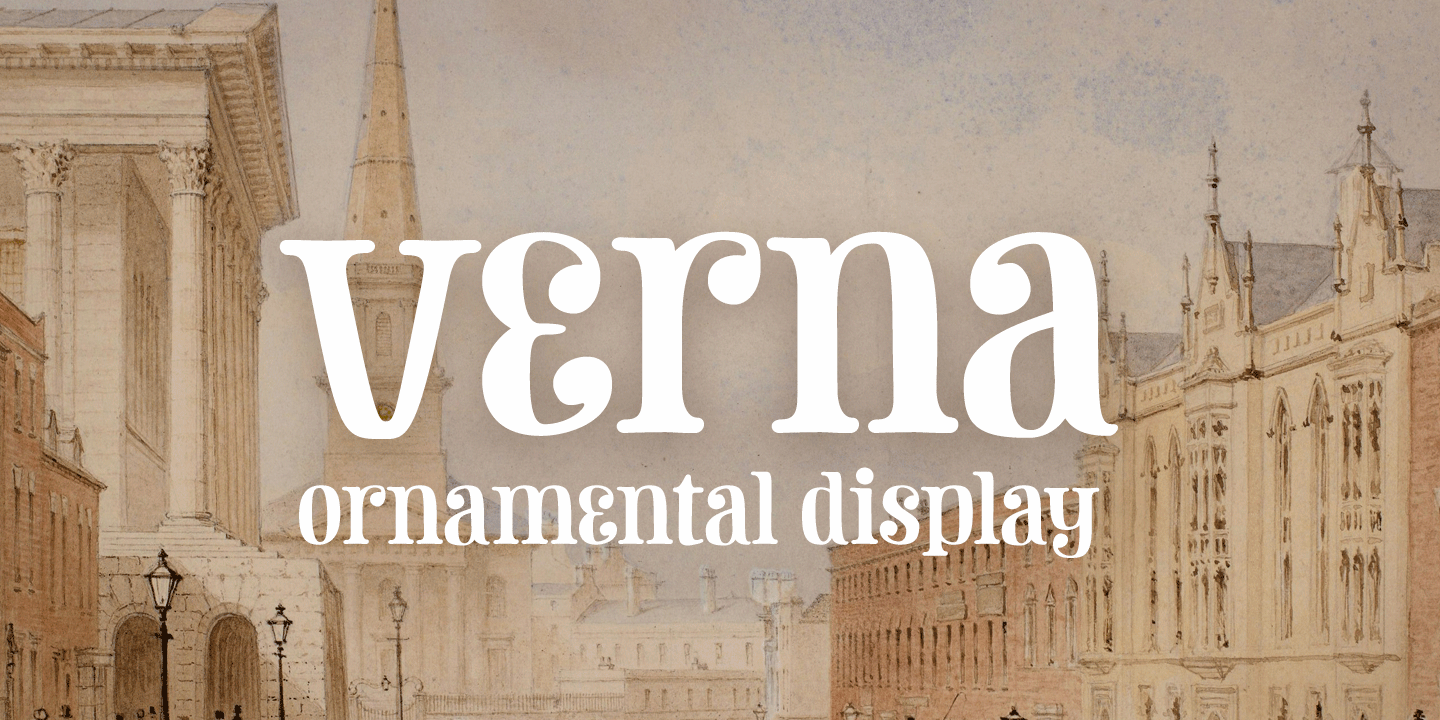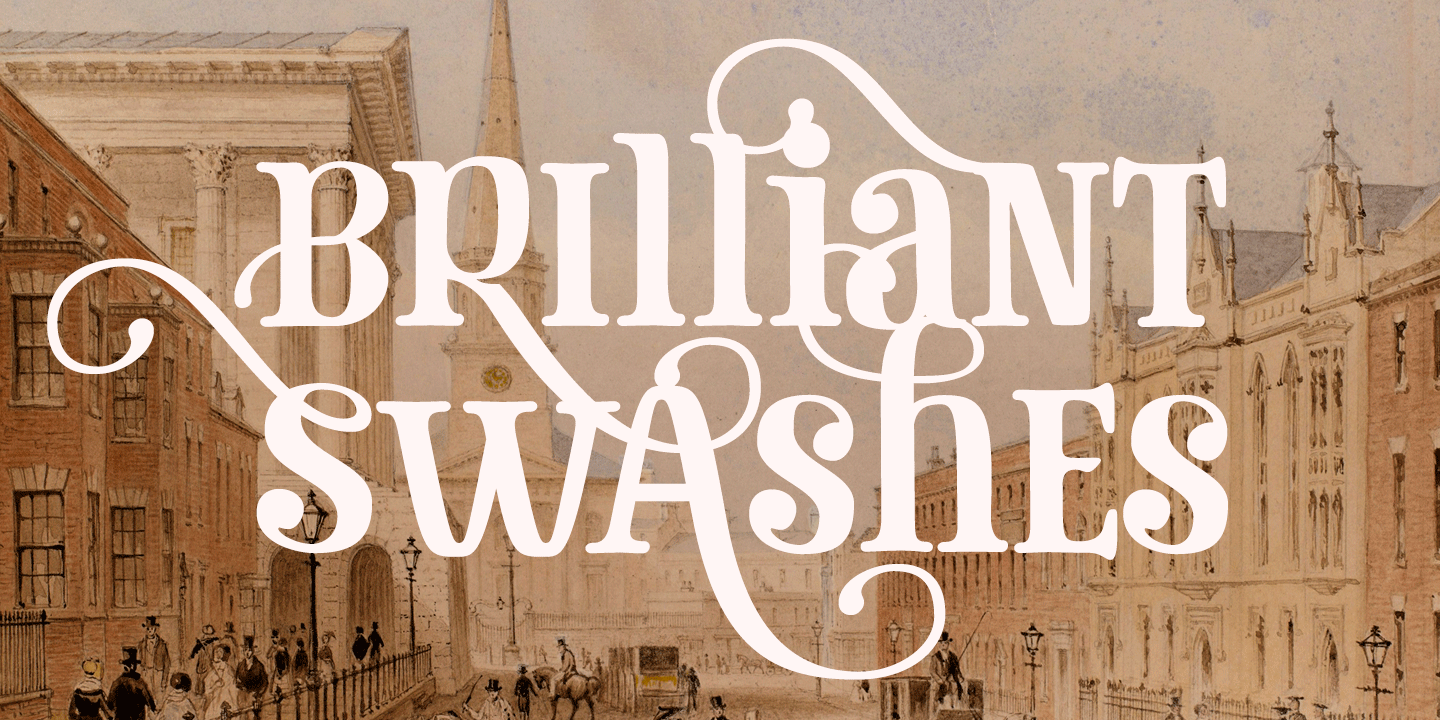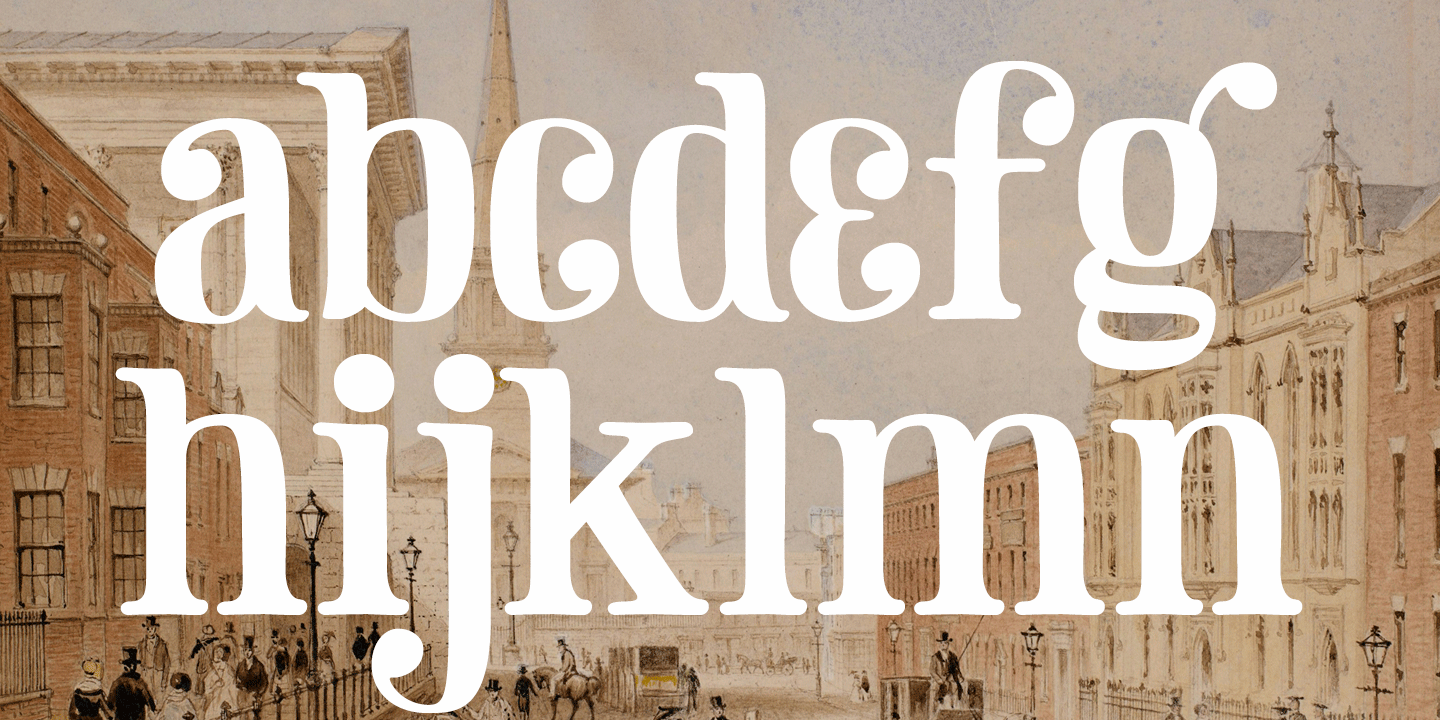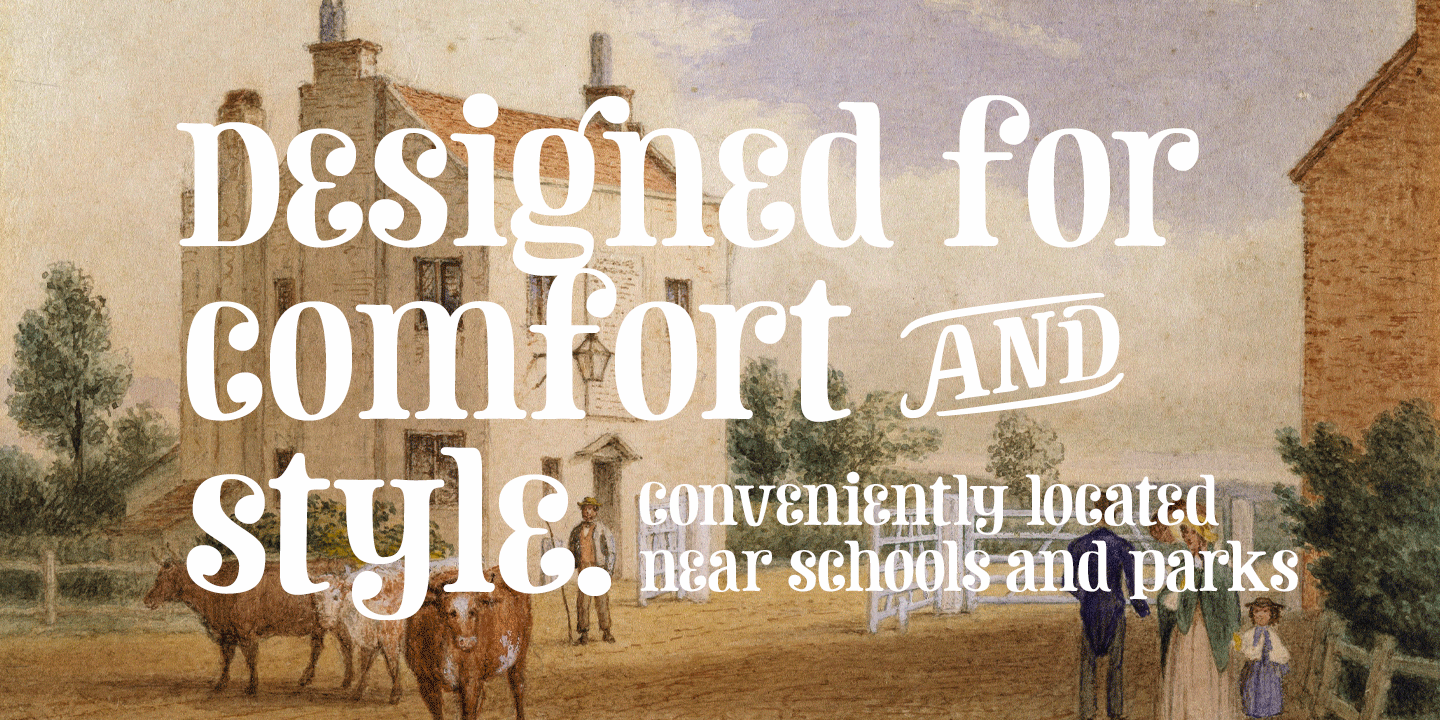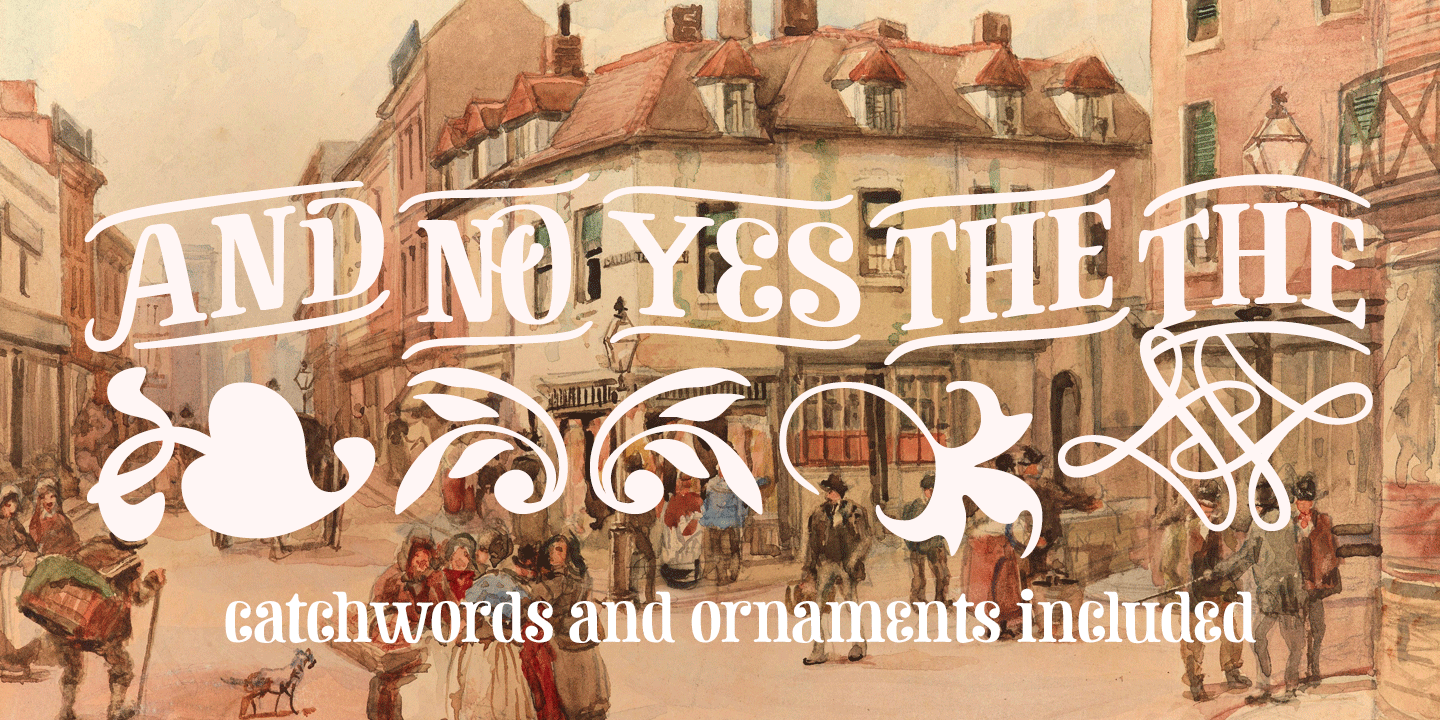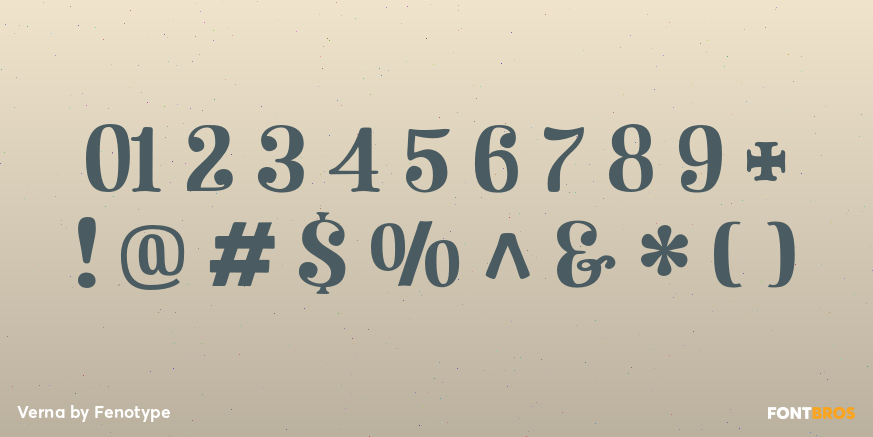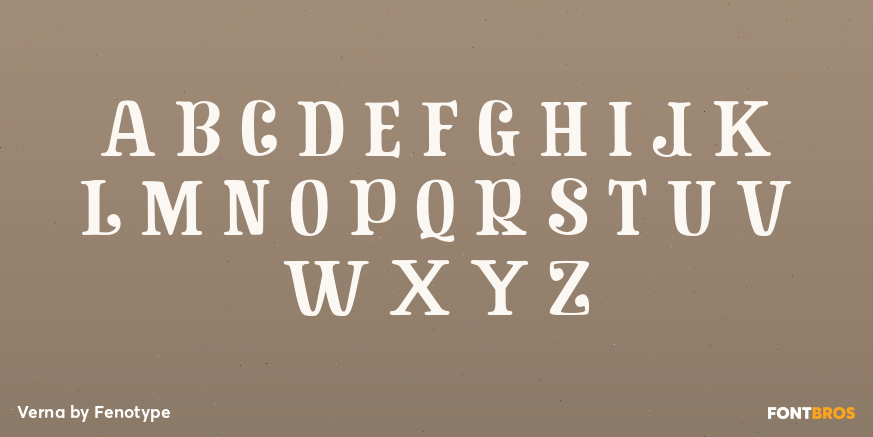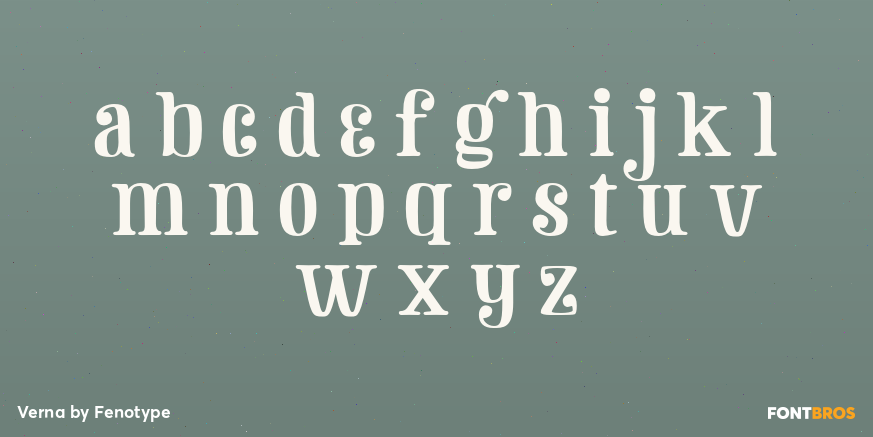
Verna
Font Family by Fenotype
Verna is a versatile contemporary font. Verna has a set of automatic ligatures, discretionary ligatures, swash initials and a selection of ornaments that you can easily access in any Opentype savvy program. Ornaments are placed in stylistic set 1 letters a-z but you'll also find them from the glyph panel.